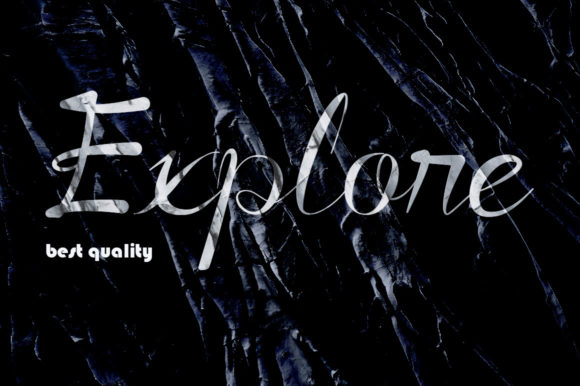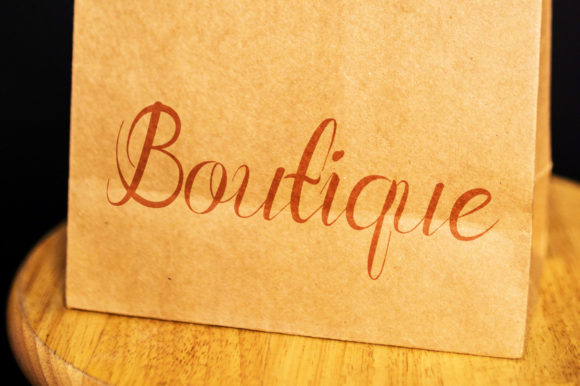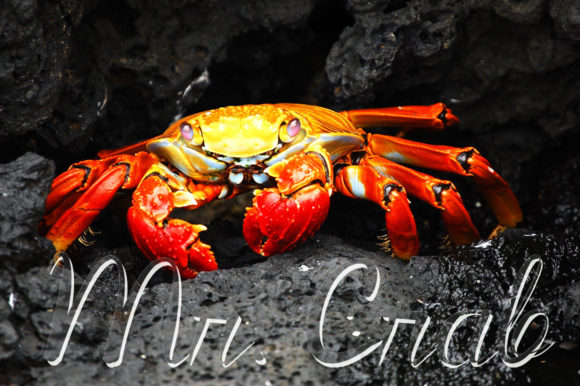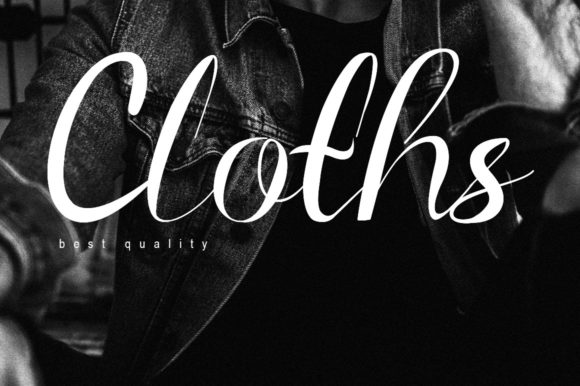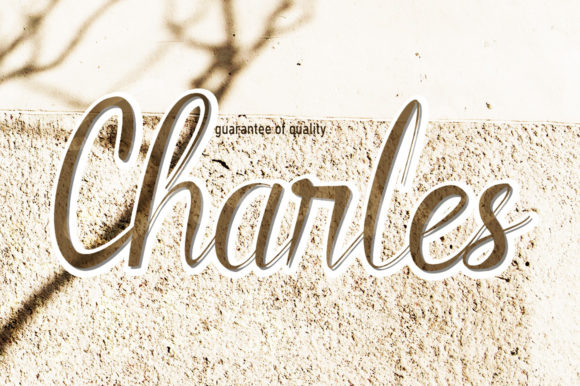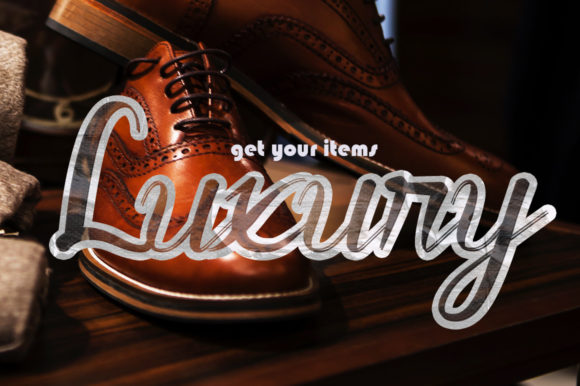
Introducing Aglaonema Font: Elevate Your Designs with Elegance and Sophistication
Are you a designer or crafter looking for a high-quality font to elevate your packaging products, invitation cards, labels, and promotional materials? Look no further than Aglaonema Font, a stunning script font designed to meet all your typography needs. With its beautiful graphics, precise kerning, and PUA encoding, Aglaonema Font is the perfect choice for anyone seeking to add a touch of elegance and sophistication to their designs.
What is Aglaonema Font?
Aglaonema Font is a carefully crafted script font, specifically designed for use in packaging products, invitation cards, labels, and promotional materials. Its unique and elegant style makes it an ideal choice for designers and crafters who want to add a personal touch to their work. The font features beautiful graphics, including characters and swashes, that are precisely kerned to ensure perfect readability and aesthetics.
Key Features of Aglaonema Font
• PUA Encoding: Aglaonema Font is PUA encoded, which means you can access all the glyphs and swashes with ease. This feature allows you to unlock the full potential of the font and explore a wide range of creative possibilities.
• High-Quality Graphics: The font features high-quality graphics, including characters and swashes, that are designed to work seamlessly together. The precise kerning ensures that your text looks professional and polished.
• Versatility: Aglaonema Font is suitable for use in a wide range of applications, including packaging products, invitation cards, labels, promotional materials, and more.
• Elegant and Sophisticated: The font’s elegant and sophisticated style makes it perfect for designers and crafters who want to add a touch of luxury to their work.
Benefits of Using Aglaonema Font
By using Aglaonema Font, designers and crafters can enjoy a range of benefits, including:
• Improved Readability: The font’s precise kerning and clear graphics ensure that your text is easy to read, even at small sizes.
• Increased Creativity: With its PUA encoding and wide range of glyphs and swashes, Aglaonema Font offers endless creative possibilities.
• Professional Results: The font’s high-quality graphics and elegant style ensure that your designs look professional and polished.
• Time-Saving: Aglaonema Font is easy to use and can be quickly integrated into your design workflow, saving you time and effort.
How to Use Aglaonema Font
To get the most out of Aglaonema Font, here are a few tips and inspiration ideas:
• Experiment with Different Sizes: Aglaonema Font looks great at a range of sizes, from small labels to large billboards. Experiment with different sizes to find the perfect fit for your design.
• Mix and Match Glyphs: With its PUA encoding, Aglaonema Font offers a wide range of glyphs and swashes. Mix and match these to create unique and eye-catching designs.
• Pair with Other Fonts: Aglaonema Font pairs well with other fonts, such as sans-serif fonts or bold scripts. Experiment with different pairings to find the perfect combination for your design.
Aglaonema Font is a stunning script font that offers a range of creative possibilities for designers and crafters. With its high-quality graphics, precise kerning, and PUA encoding, it’s the perfect choice for anyone seeking to add a touch of elegance and sophistication to their designs. Whether you’re working on packaging products, invitation cards, labels, or promotional materials, Aglaonema Font is sure to impress.